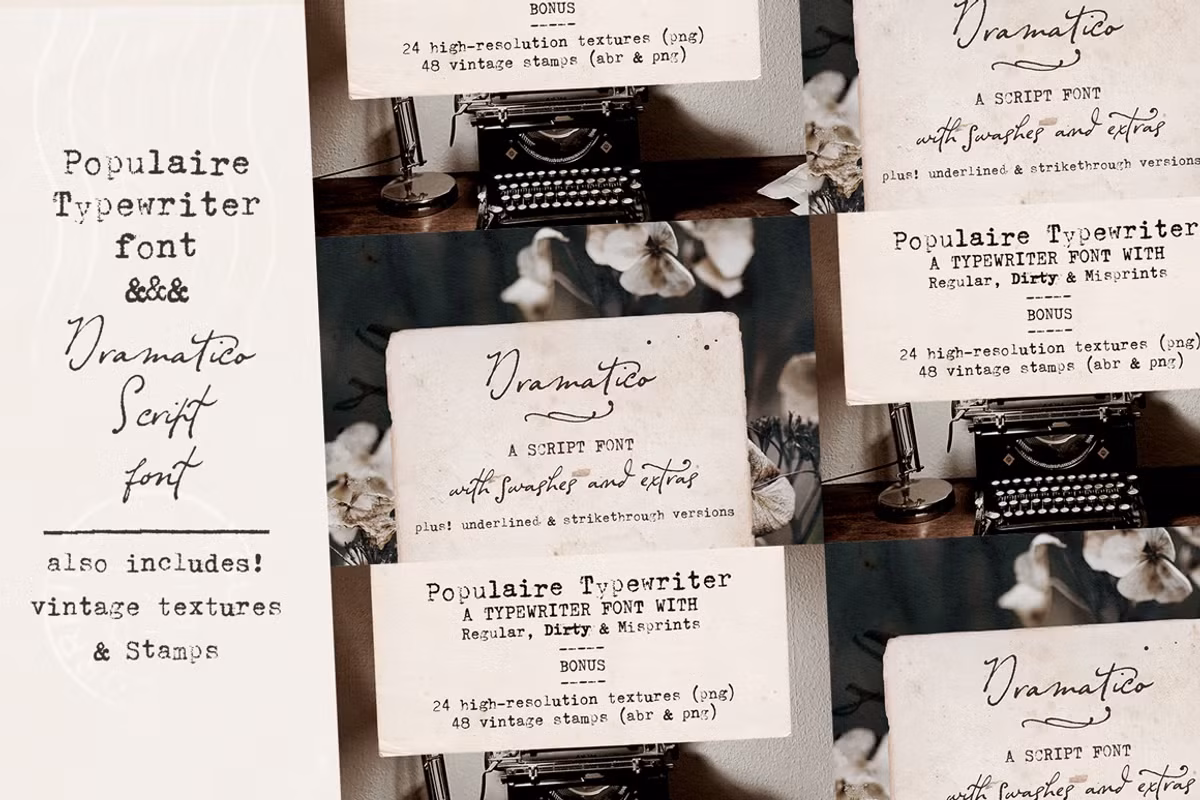
Typewriter and Script Font Pack Free Download is a charming duo that brings together the nostalgic feel of classic typewriter fonts with the elegance of flowing script lettering. Perfect for invitations, journaling, branding, quotes, and creative layouts, this font pack offers a beautiful contrast between vintage structure and handwritten warmth.
The typewriter font adds a retro, mechanical touch—great for labels, editorial projects, and minimalist design—while the script font softens the mood with its personal, handwritten style. Together, they create a balanced and visually engaging typography combo that works across both print and digital formats.